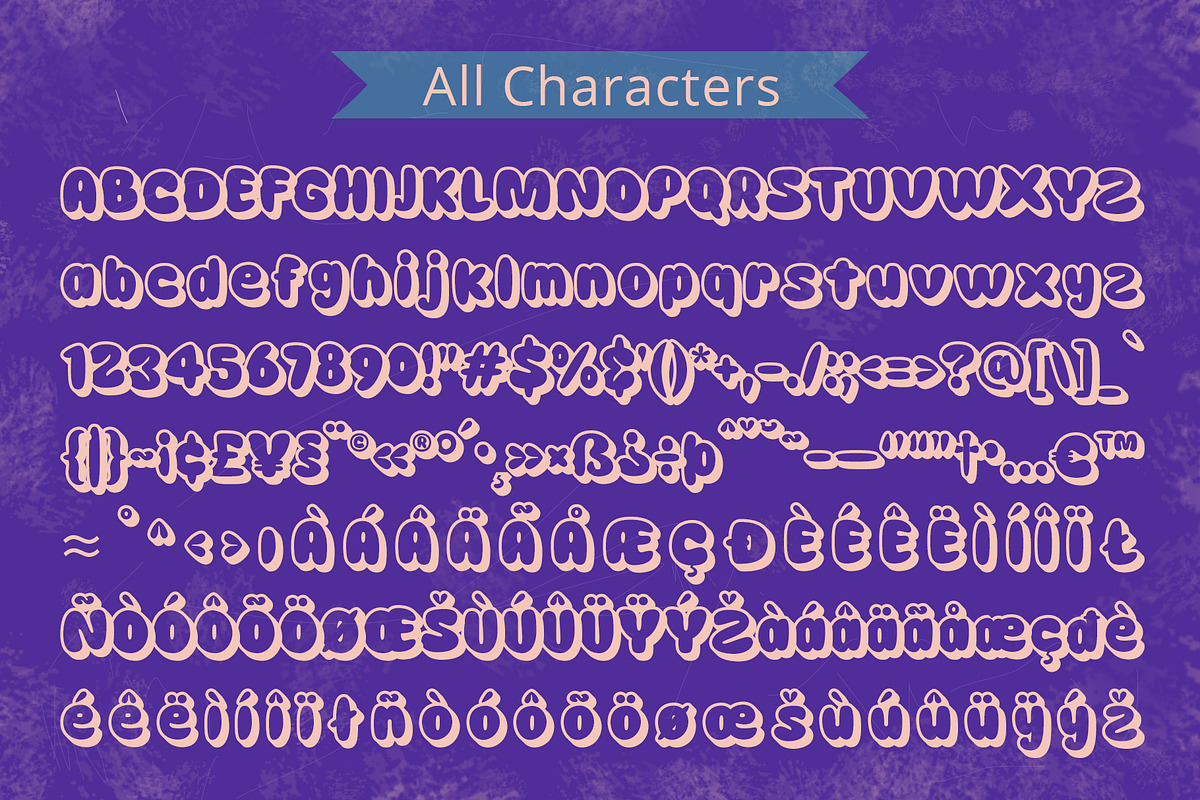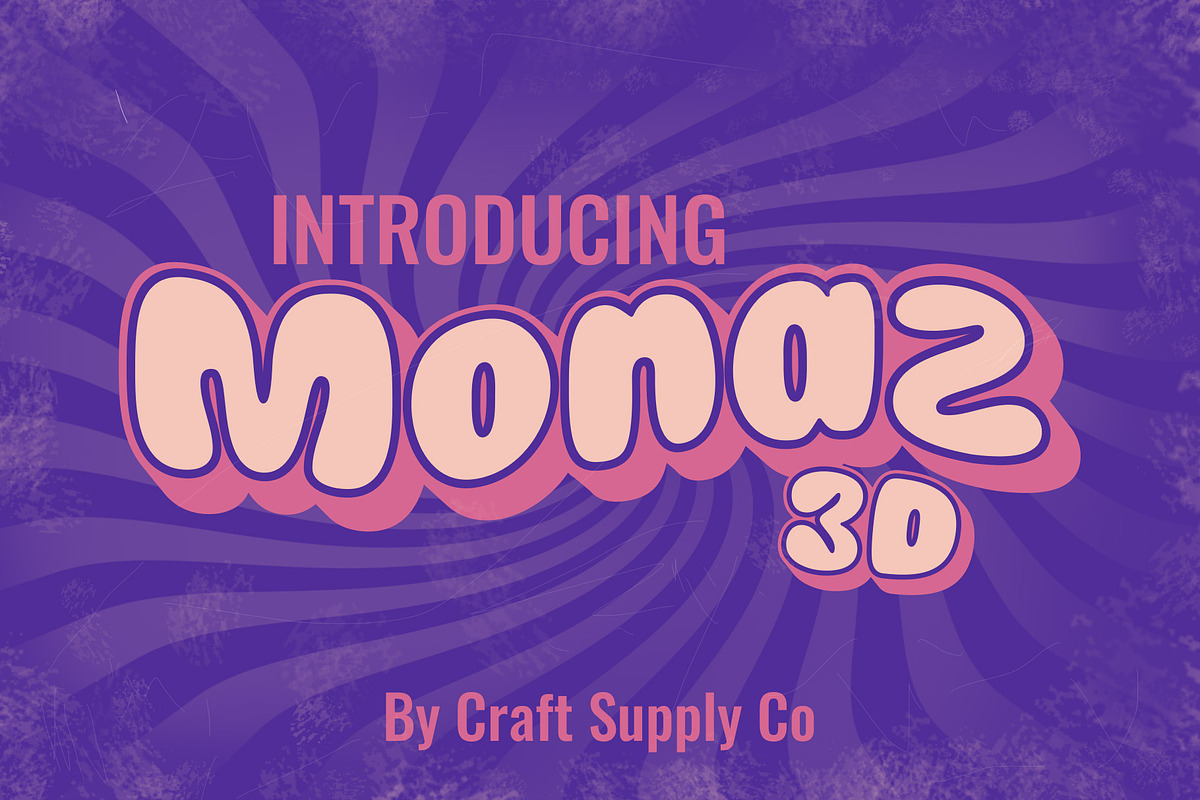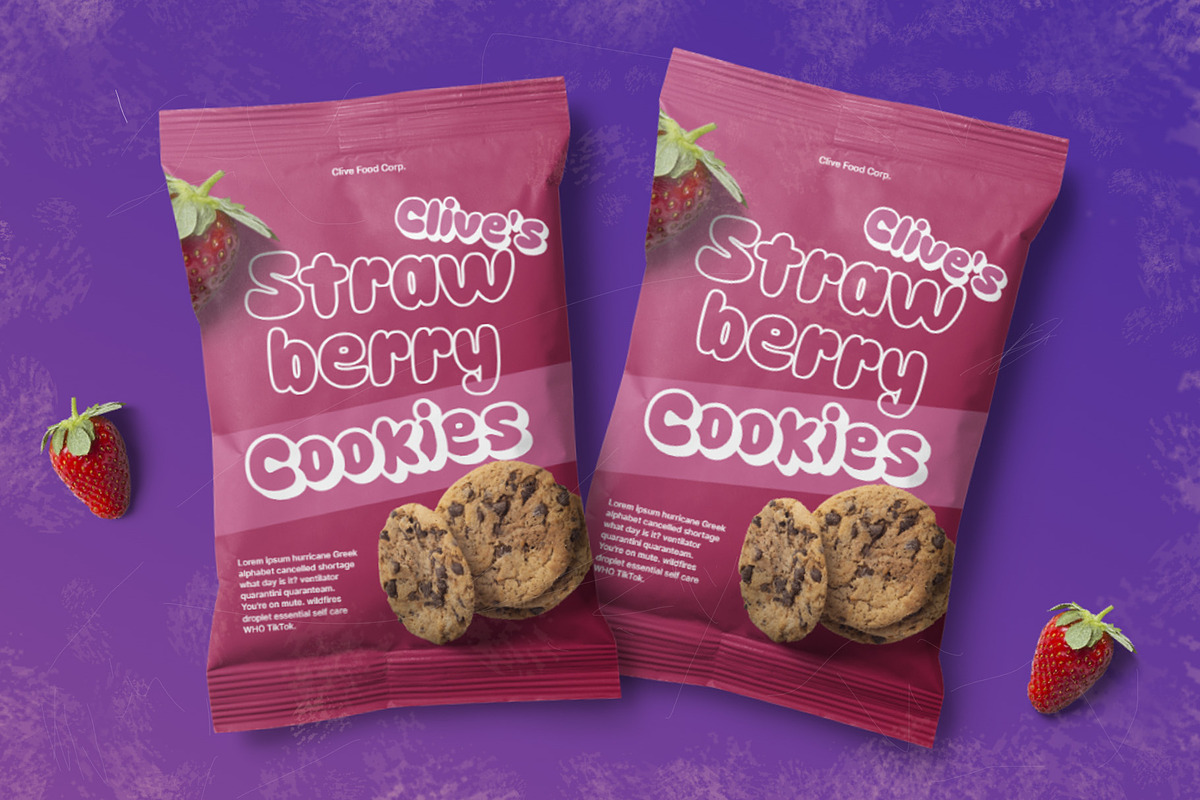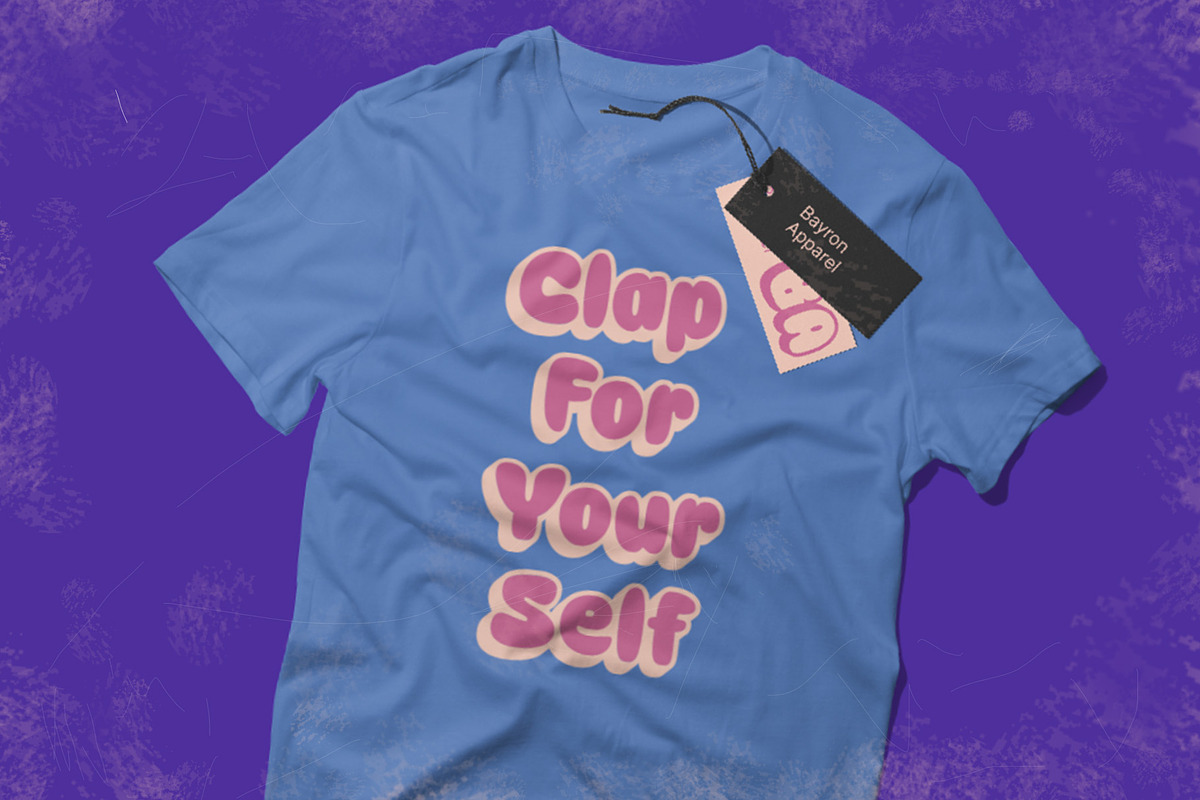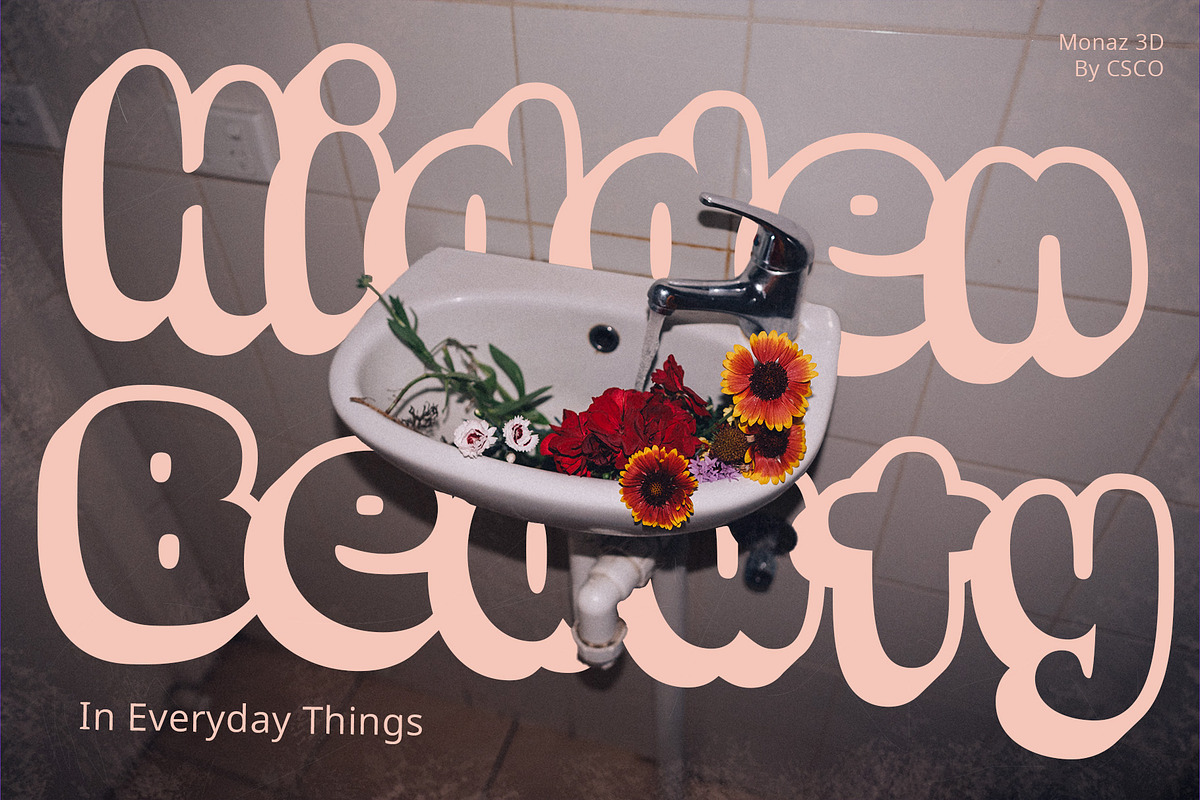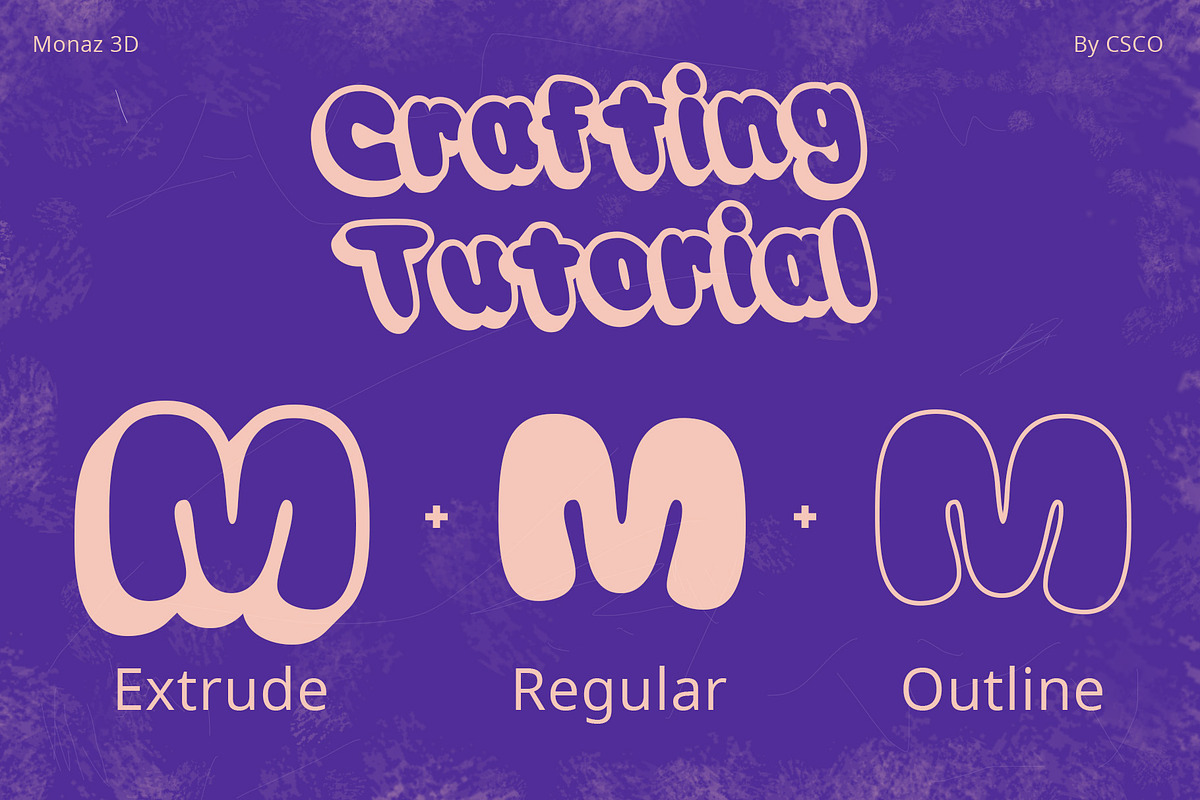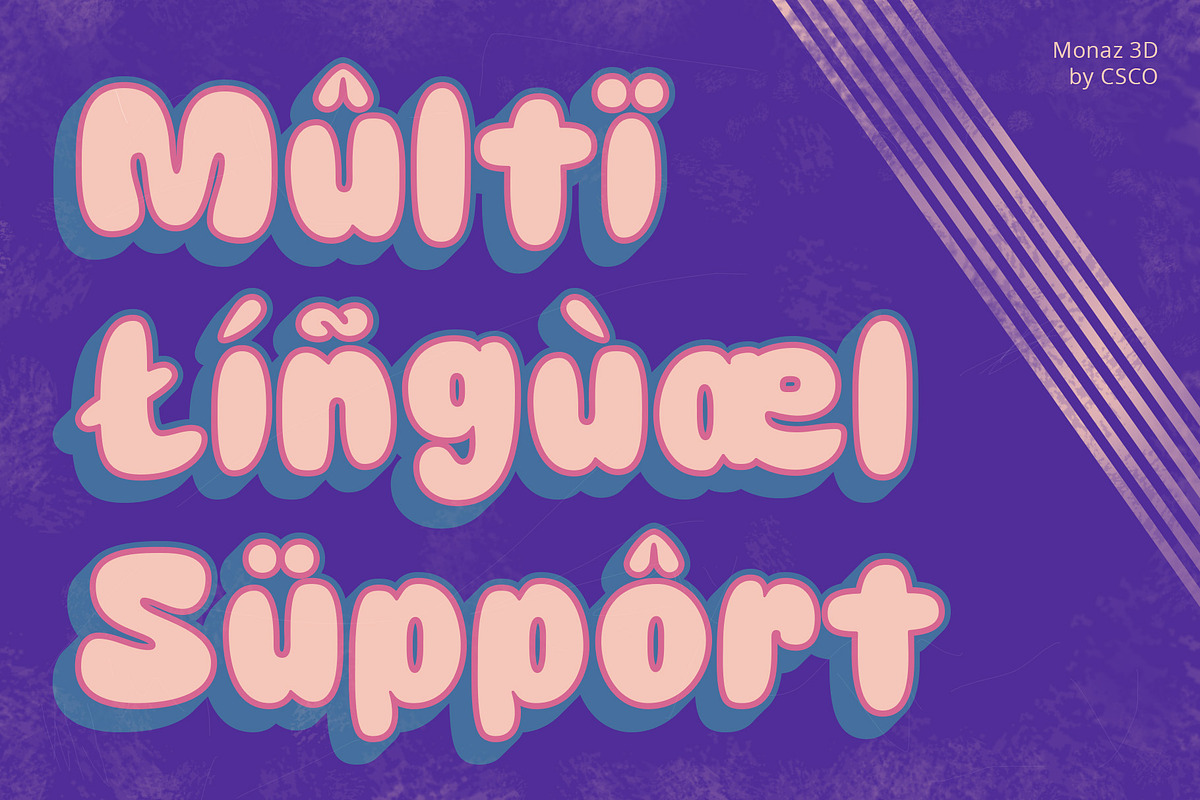
Monaz 3D
Monaz 3D: Elevate Your Design with Dimensional Delight
3D Extrude Marvel Monaz 3D introduces a captivating display font that transcends flatness, boasting an engaging 3D extrude effect that adds depth and dimension to each character.
Bubble Groovy Aesthetics Embrace the groovy and bubbly aesthetics of Monaz 3D, where each letter takes on a playful and dynamic bubble-like form, injecting a sense of fun into your designs.
Outline Brilliance The font’s outline feature enhances its visual impact, ensuring clarity and readability while contributing to the overall 3D effect, making Monaz 3D a versatile choice for various design projects.
Creative Versatility From eye-catching headlines to vibrant posters, Monaz 3D offers creative versatility, making it the go-to choice for designers seeking to infuse their projects with a touch of lively and dimensional flair.
In summary, Monaz 3D is a font that marries the excitement of 3D design with the playful charm of bubble grooviness, delivering a visual feast for projects across diverse creative landscapes.